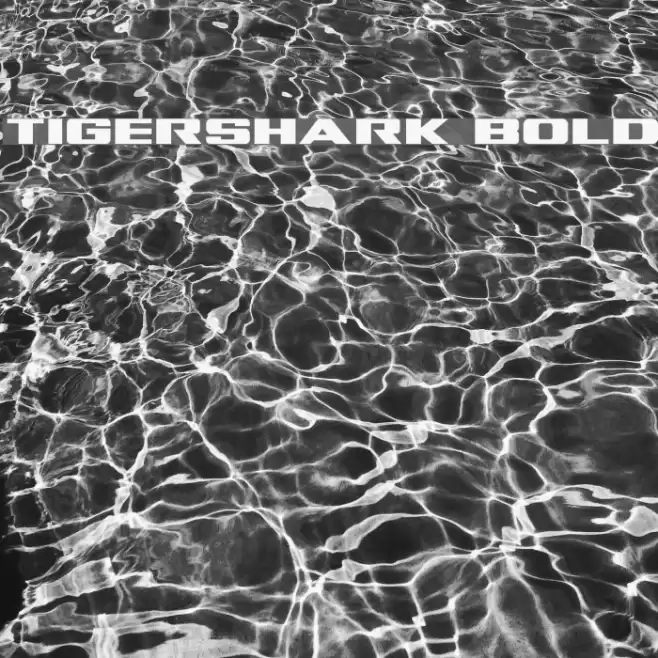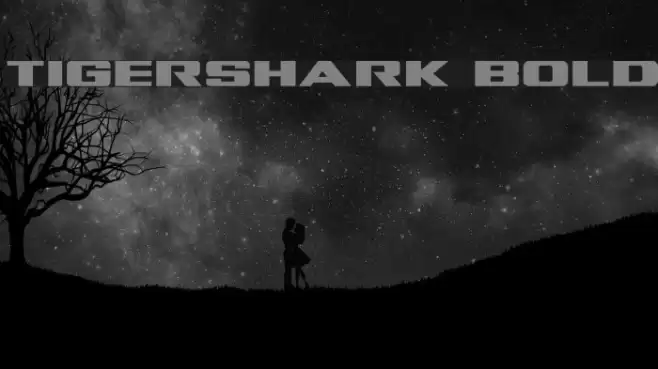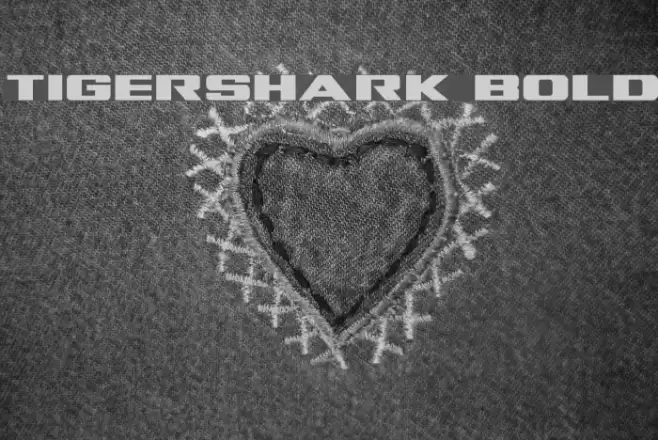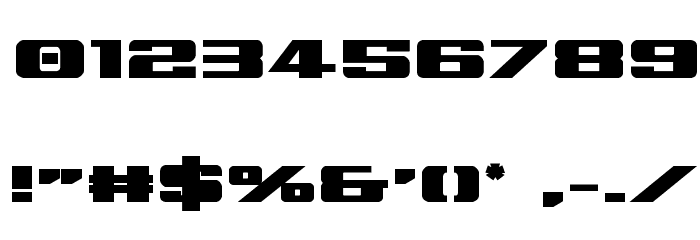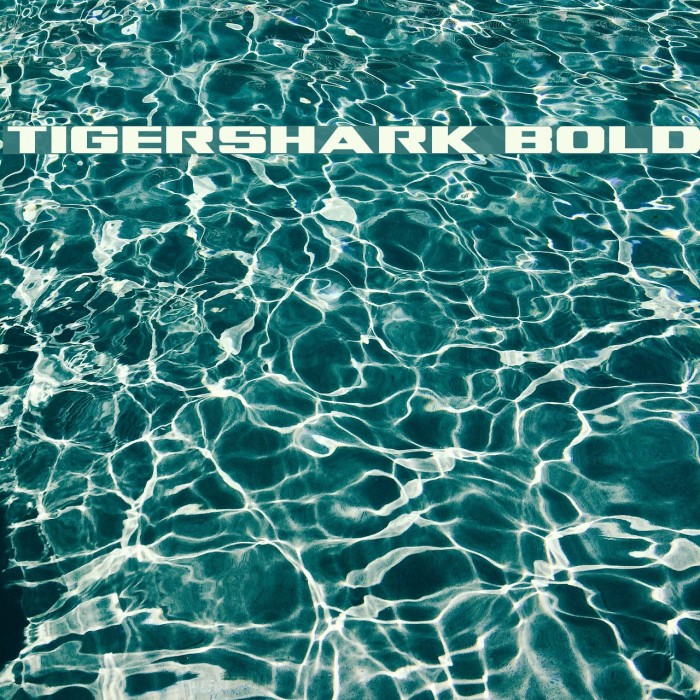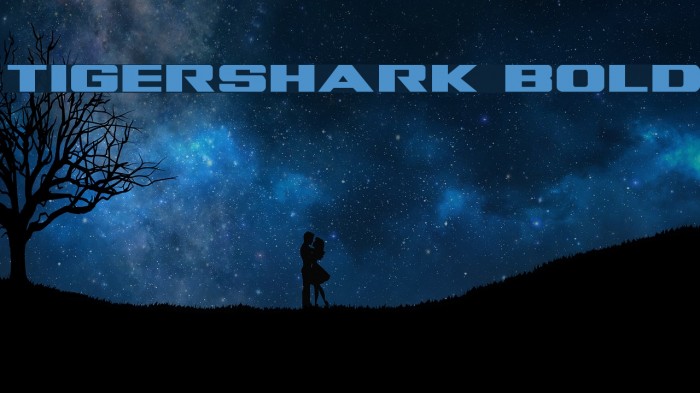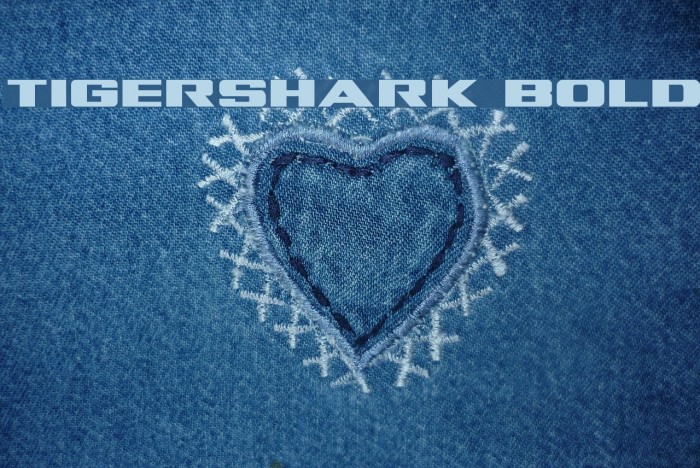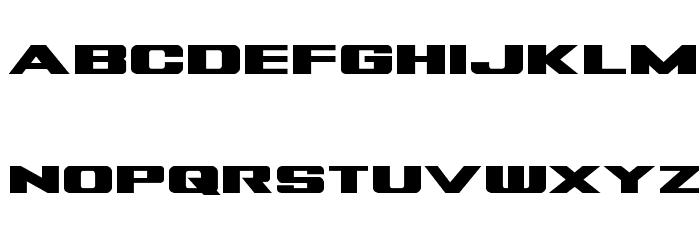
Tigershark Bold Font
Tigershark Bold Description
This font features a bold and striking design with a modern, angular aesthetic. The characters are wide and blocky, with a strong geometric influence that gives them a powerful presence. The uppercase letters are particularly prominent, with sharp edges and a consistent height that creates a uniform appearance. The lowercase letters maintain this boldness, ensuring readability while retaining the font's distinctive style. Numbers and special characters are equally robust, making them suitable for attention-grabbing displays. The overall design is ideal for projects that require a bold statement.
A bold, angular font with a modern, geometric style from Uncategorized fonts.
- Proposed Projects: Ideal for branding, posters, headlines, and any project needing a strong visual impact.